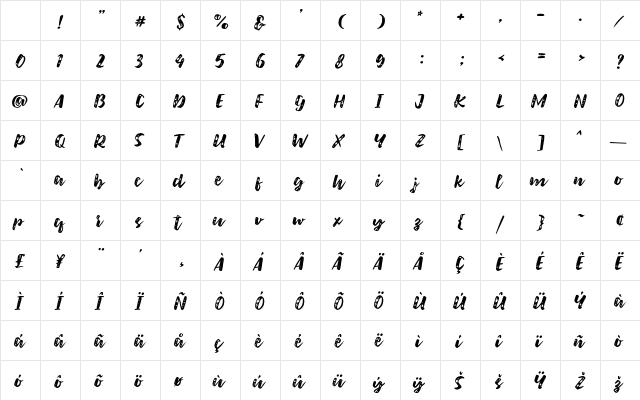
Complete Bolten Rough glyph index. Displaying only characters natively supported by Bolten Rough font.
Bolten embraces imperfection - its rough, textured character adds raw authenticity to designs that want to feel lived-in and unconventional.
Pro Tip: Use Bolten at larger sizes where the texture and irregularity of each letterform can be clearly seen - it loses its character at small sizes.